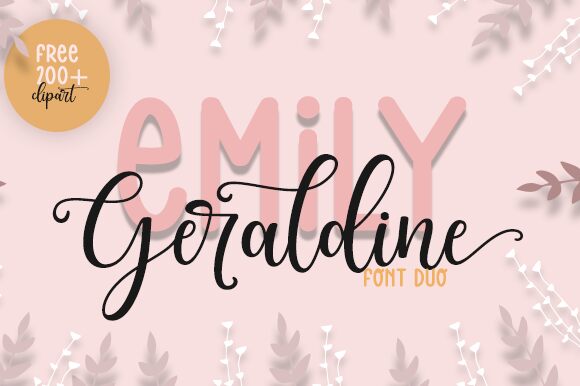
Emily Display, designed by Danar Nugroho, is a charming and playful display font that is sure to add a touch of whimsy to any project. With its semi-light weight and condensed width, Emily Display is perfect for headlines, titles, and logos. The comic style of this font makes it ideal for children's books, posters, and invitations. Its unique design also makes it suitable for branding campaigns looking to add a fun element to their visual identity. Whether you're creating a website or designing packaging for a product, Emily Display will bring your ideas to life with its delightful charm.
Emily Display